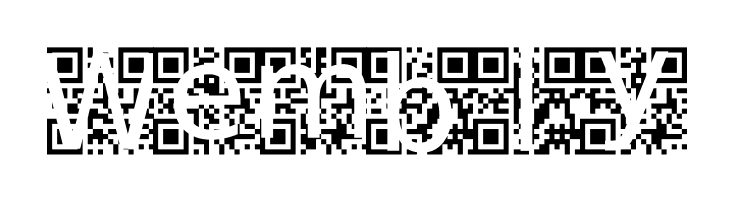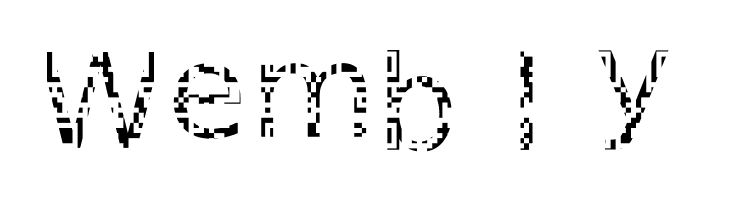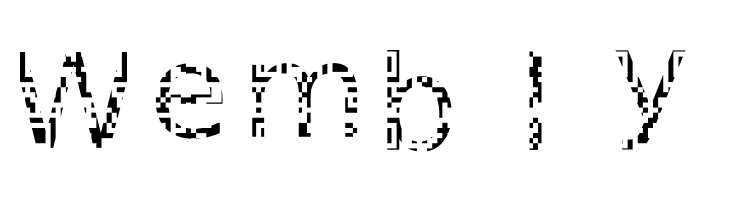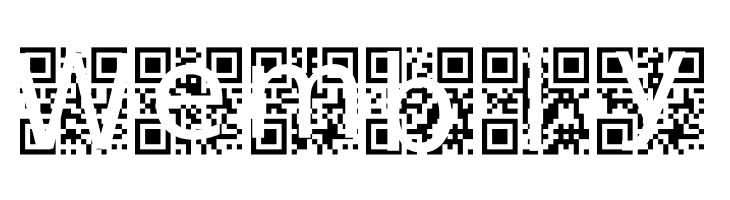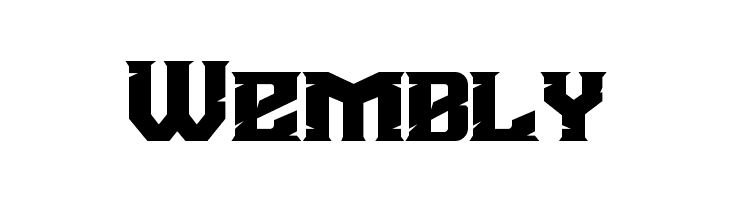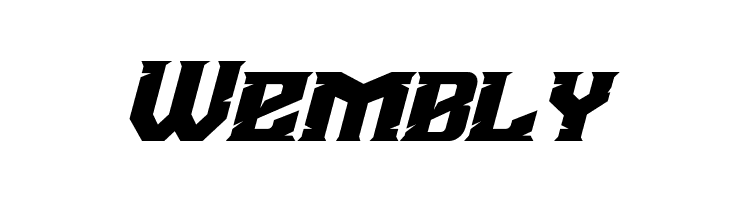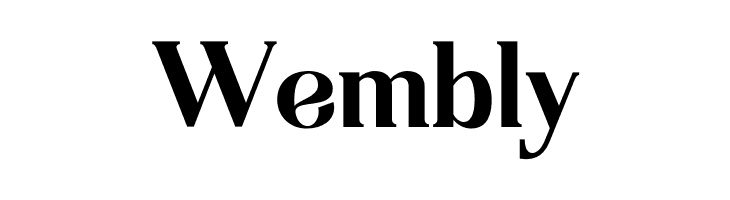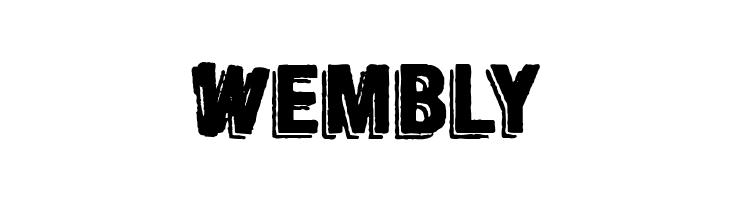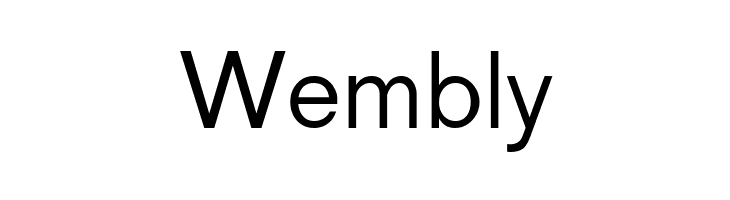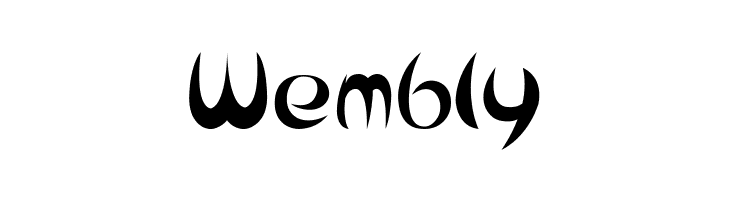
A bold, decorative font with intricate, swirling designs and a gothic flair.
A bold, distressed font with a rugged, hand-drawn appearance.
A bold, handwritten font with dynamic and expressive strokes.
A bold, playful handwritten font with thick strokes and dynamic flow.
A pixelated, digital-themed font with a QR code-like design.
A distressed, grunge-style font with a vintage, textured appearance.
A pixelated, QR code-inspired font with a modern, digital aesthetic.
A distressed, textured font with a vintage, industrial feel.
A classic serif font with high contrast and elegant strokes.
A modern, bold sans-serif font with geometric influences and uniform stroke widths.
A bold, Gothic-inspired font with sharp, angular edges and strong geometric shapes.
A bold, angular italic font with dynamic and energetic styling.
A bold, rounded font with a strong, playful presence.
A classic serif font with elegant strokes and medium contrast.
An elegant italic font with smooth curves and balanced contrast.
A modern, geometric font with a tall and narrow design.
A bold, dynamic font with a slight slant and consistent stroke widths, ideal for impactful designs.
A modern, sleek font combining geometric and cursive styles.
Font made from silhouettes of military aircraft and helicopters.
A dynamic and fluid script font with elegant, flowing letterforms.
A dot-based digital font with a modern, technological aesthetic.
A bold, geometric font with a futuristic and modern style.
A bold, futuristic font with geometric and dynamic styling.
A bold, decorative font with dynamic curves and sharp edges.
A bold, futuristic font with sharp, angular edges and a dynamic style.
A bold, cursive font with a dynamic and flowing style.
A whimsical, hand-drawn font with tall, narrow characters and playful details.